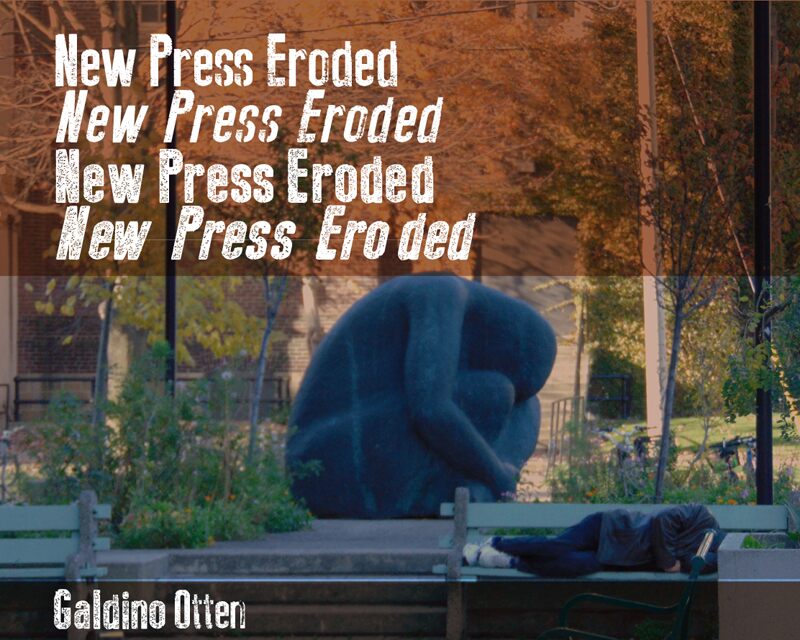
New Press Eroded Italic is a bold, weathered display font that exudes a rugged, industrial aesthetic. Its condensed character width and eroded, textured appearance lend it a striking visual impact, making it well-suited for headers, logos, and attention-grabbing design elements. The distressed, irregular letterforms evoke a sense of gritty authenticity, lending an air of resilience and raw energy to any project. This font's strong, distinctive personality shines in applications ranging from editorial layouts to packaging design, where it can effectively convey a sense of durability and resilience.
This font's unique character can elevate a wide variety of design projects, from modern, minimalist branding to edgy, urban-inspired aesthetics. Its versatility allows it to seamlessly integrate into both contemporary and vintage-inspired design styles, making it a valuable asset in the designer's toolkit.